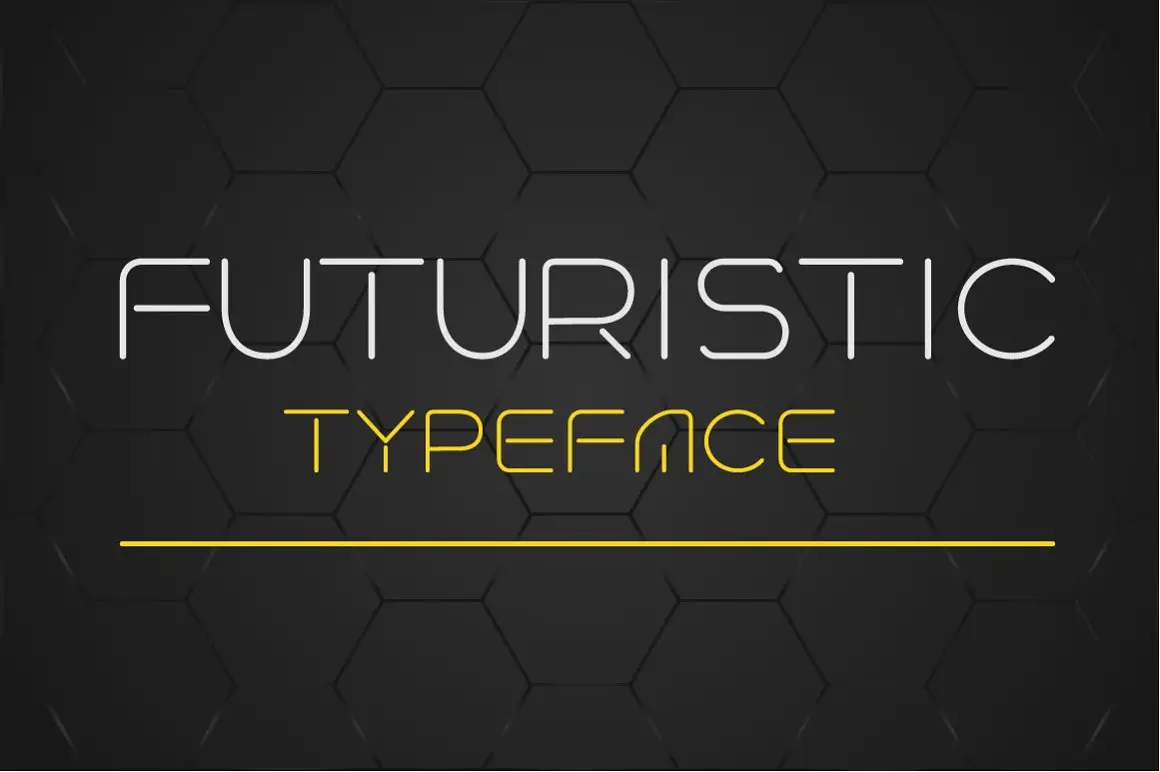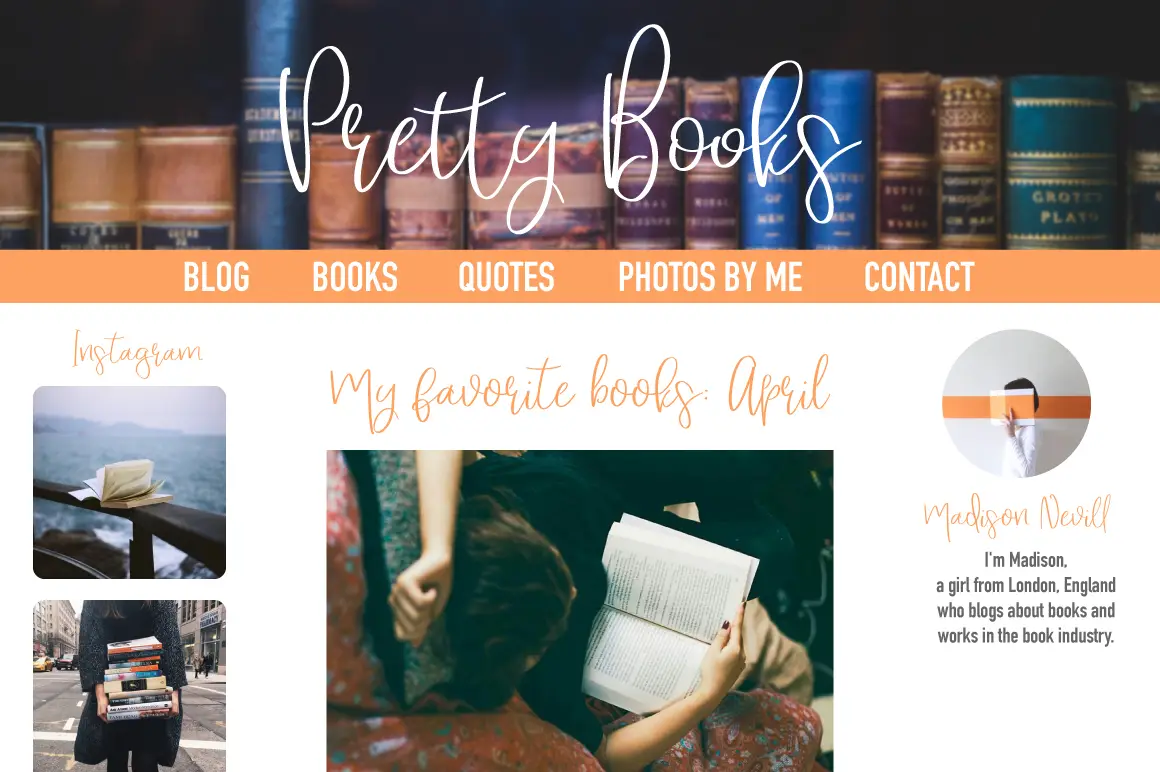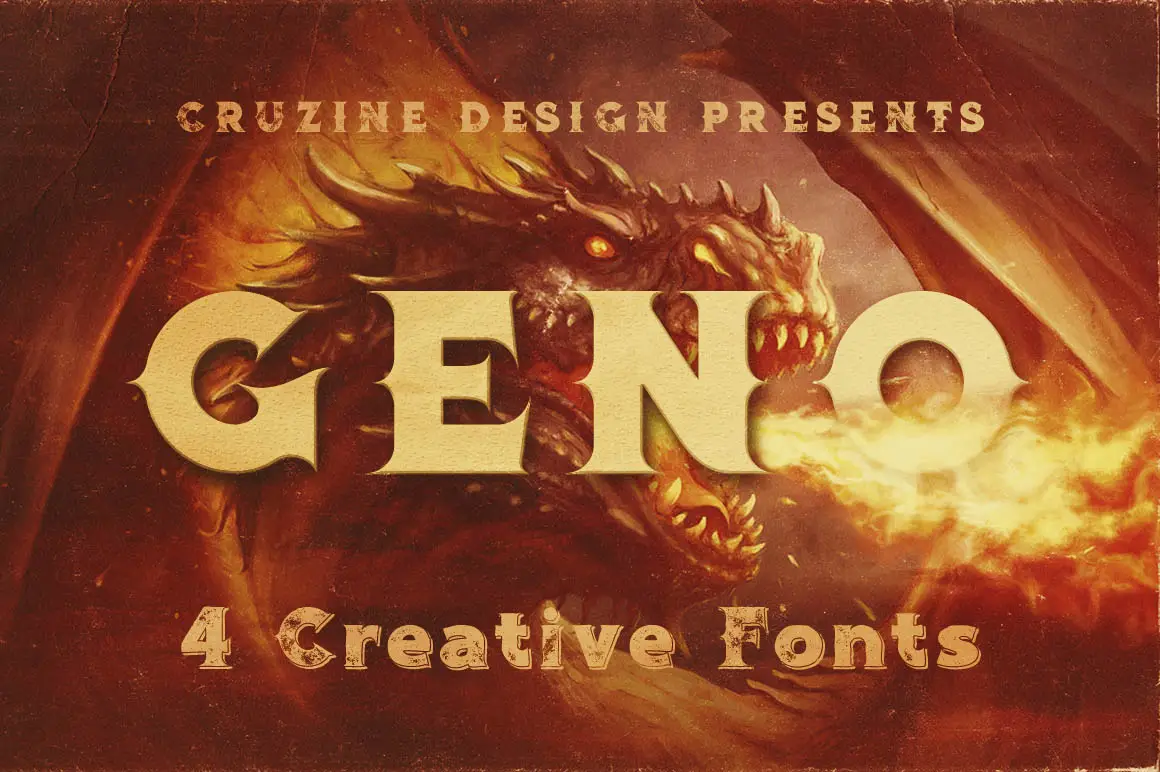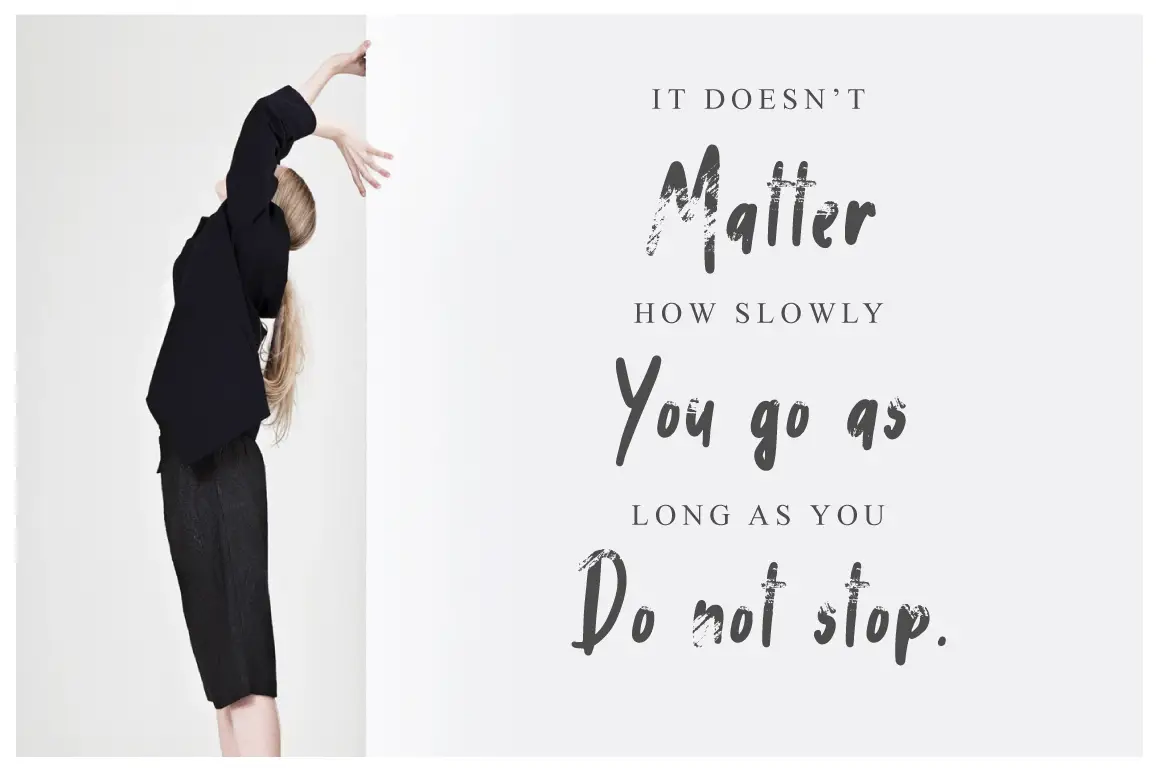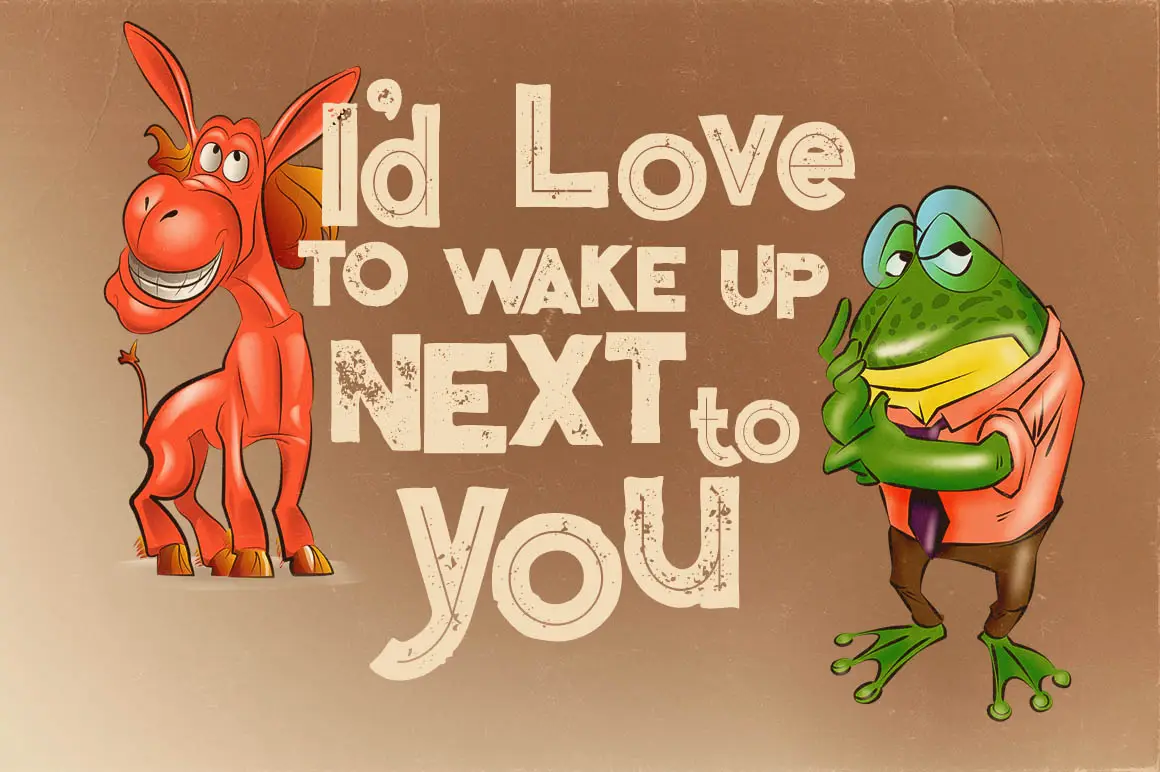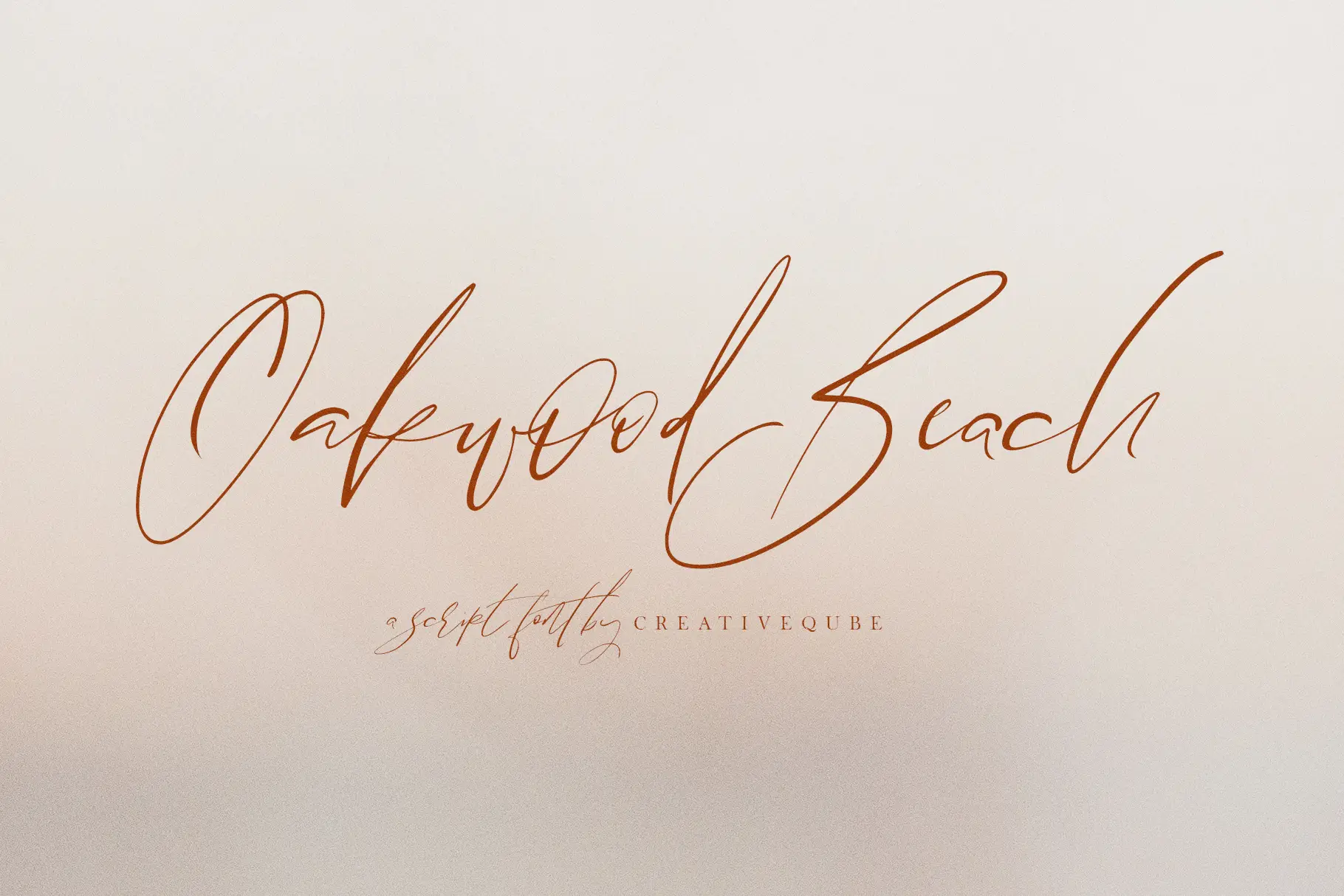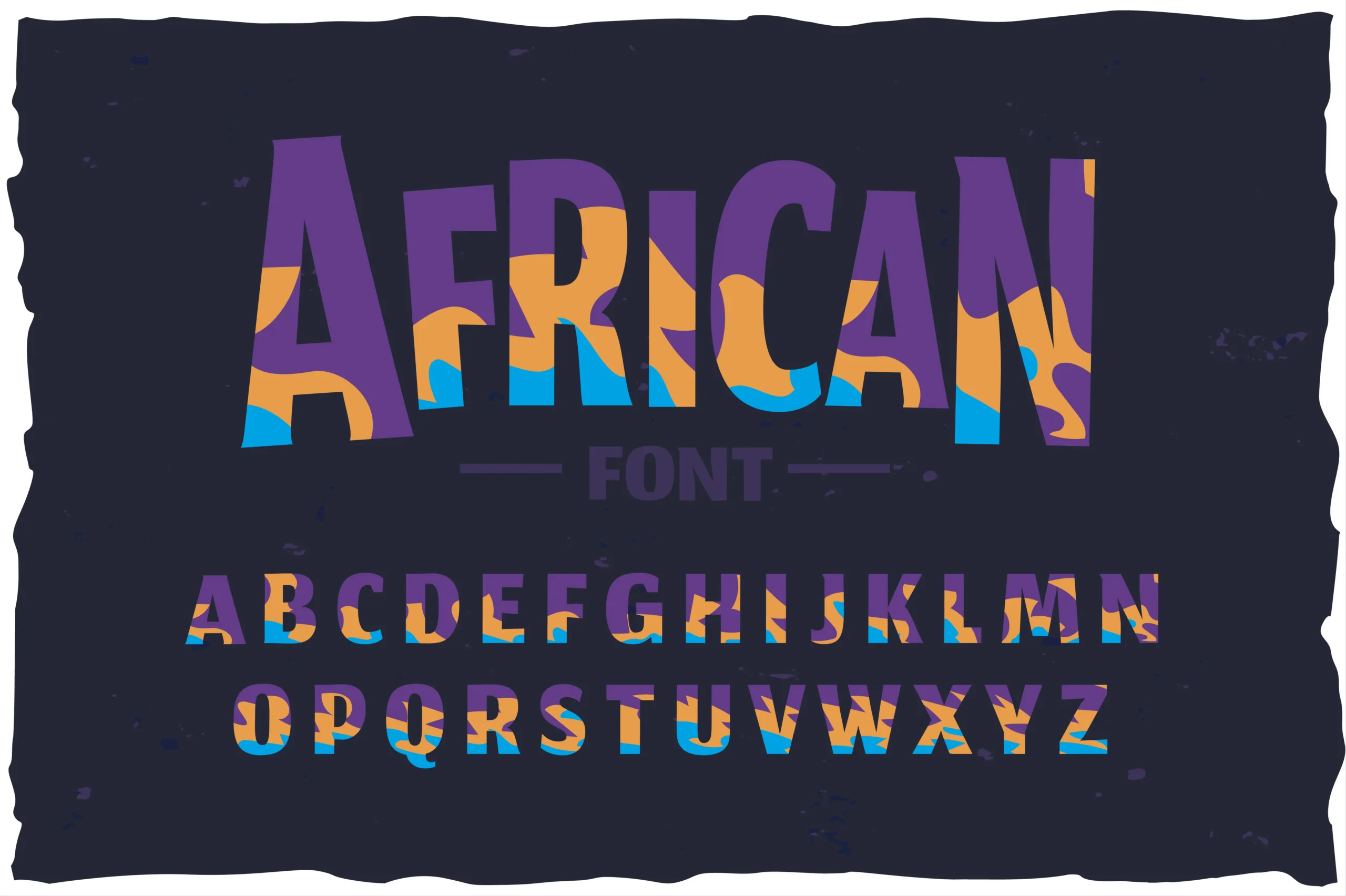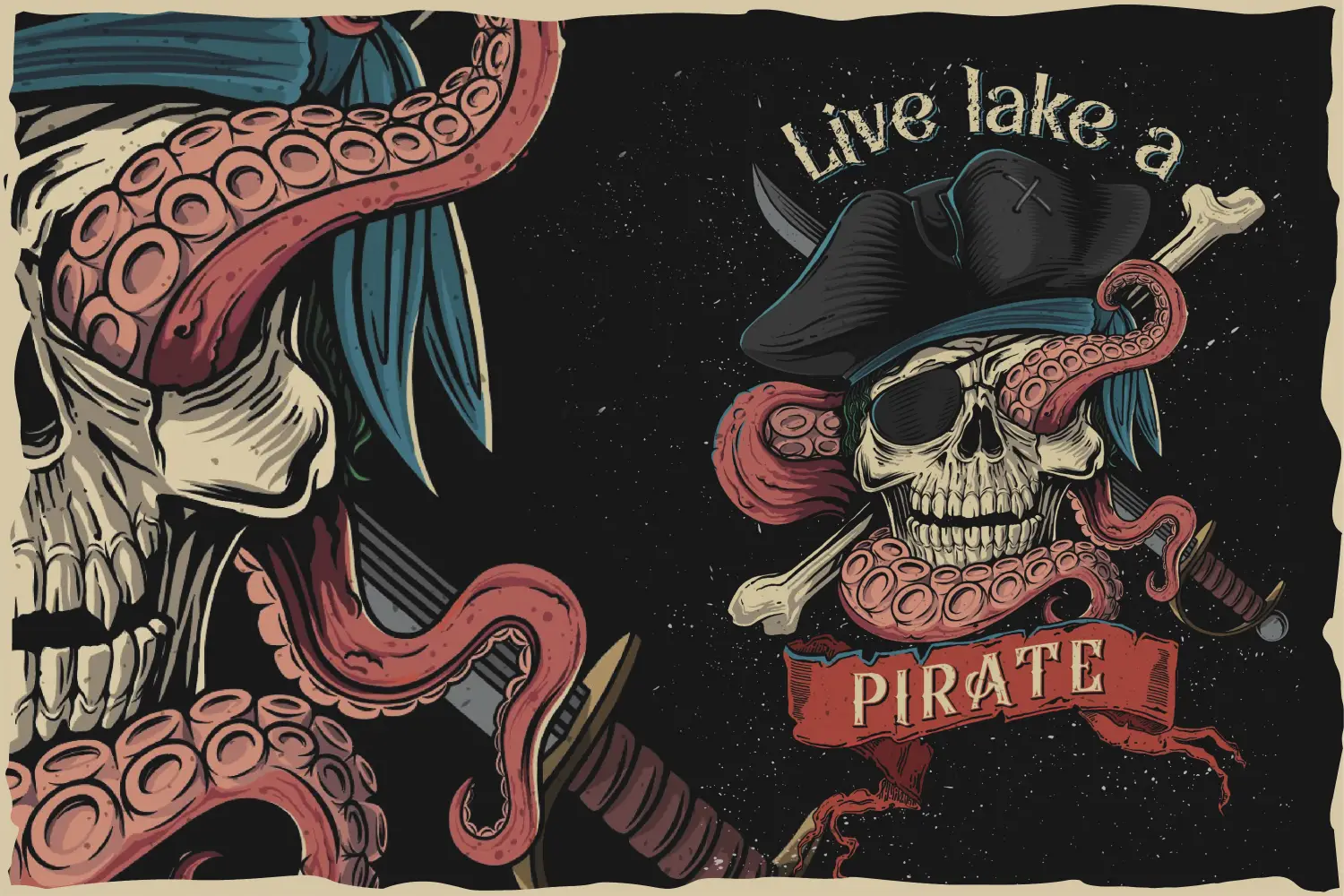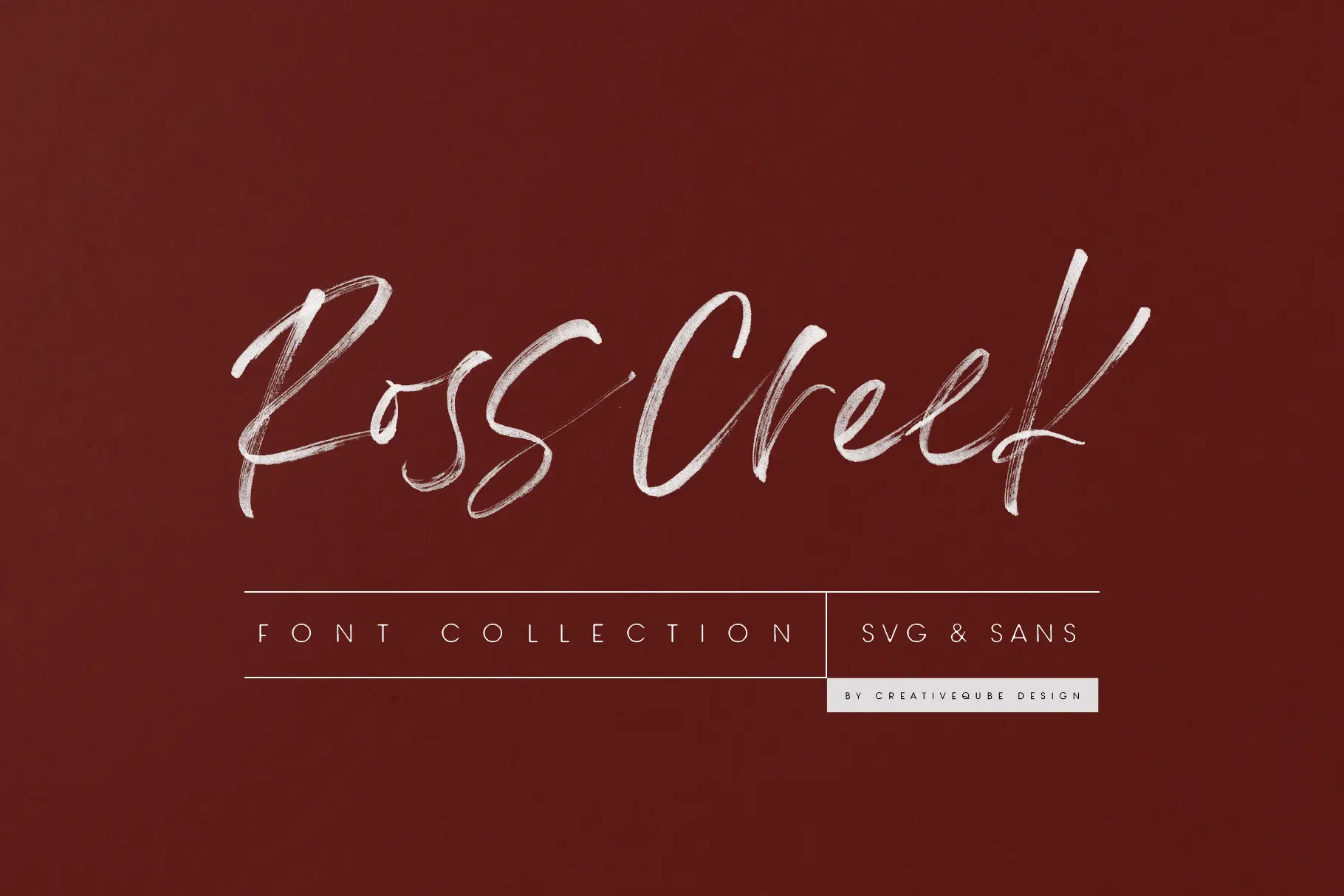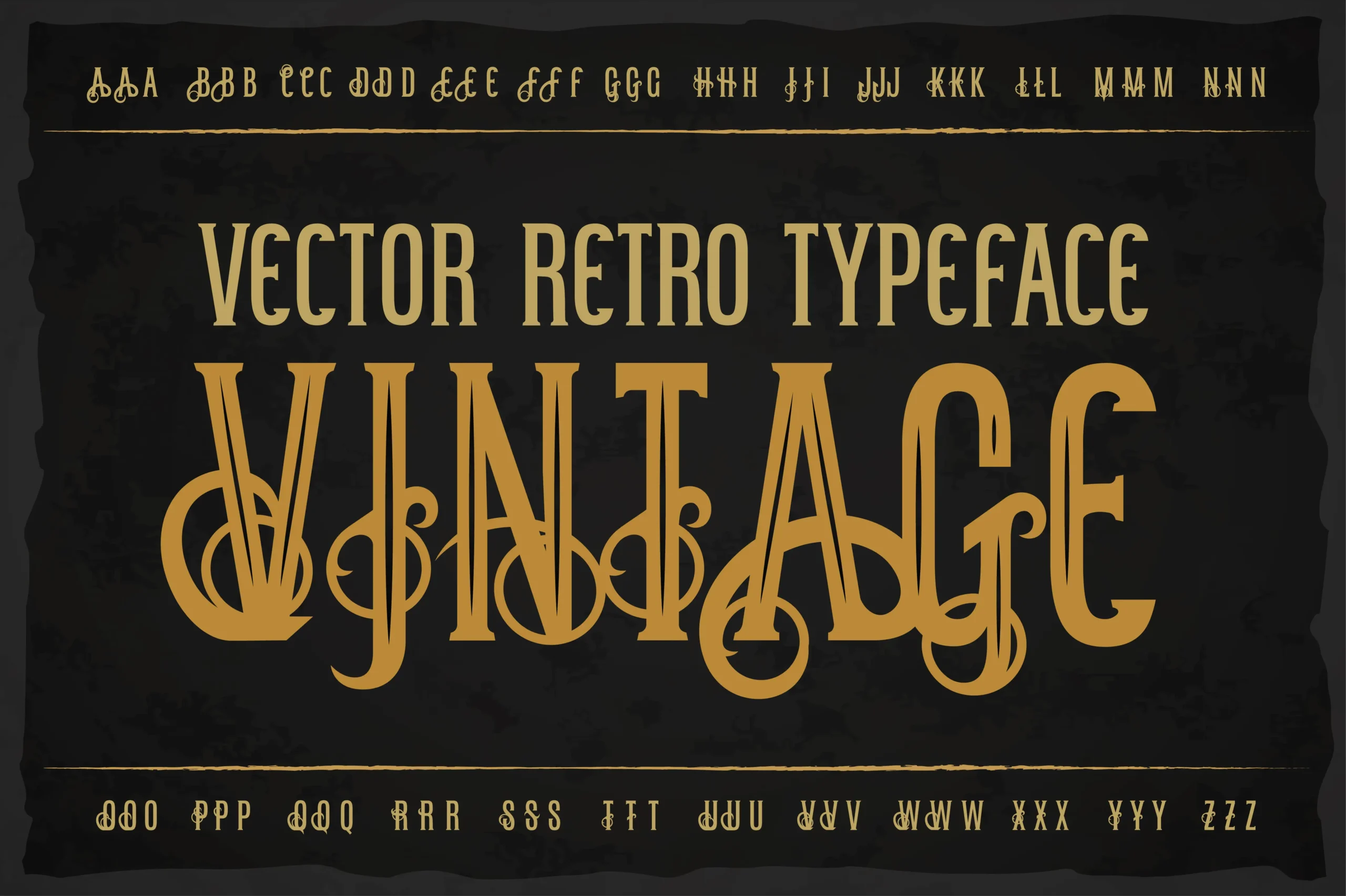
Newyork
Channel the energy of the Big Apple with this modern, sophisticated typeface! 🗽 Perfect for branding and web design, it’s clean, versatile, and screams urban elegance.
Geno
Geno is your go-to for seamless customization! 🎨 This high-quality asset blends into any project, making it a dream for both personal and professional use.
Mozza
Mozza is as delicious as its name suggests! 🧀 With customizable templates and high-quality design elements, it’s perfect for both web and print projects.
Kiko
Kiko brings the fun! 🐾 Packed with high-resolution graphics and illustrations, this collection is a one-stop shop for social media, branding, and marketing magic.
Hamburg
Hamburg is built for clarity and detail! 🌟 These high-resolution files are versatile enough to fit any project, from corporate branding to personal crafts.
Ollie
Say hello to Ollie, your new design BFF! 🤝 With customizable components and easy integration, it’s a total game-changer for visual storytelling.
Raven
Raven is dark, moody, and absolutely stunning! 🌙 Perfect for branding and digital artwork, its high-resolution files make every detail pop.
Geffry
Geffry brings a modern, clean aesthetic to your toolkit! ✨ It’s super customizable, making it a breeze for branding, marketing, and digital content.
Spooky Winter
Who said winter can’t be a little spooky? 👻🎄 This unique collection blends frosty vibes with eerie charm—perfect for holiday projects with a twist!
Wonderful Time Script Font By Creativeqube Design
Elegance meets charm with this flowing script font! ✍️ Perfect for invitations and personal touches, it’s available in multiple weights and formats.
Otf Color Font! Funny African Style
Add some serious flair to your designs with this vibrant, colorful font! 🌍🎨 It’s playful, bold, and perfect for branding that needs a unique cultural touch.
Vitage Elegant Sans Serif Otf Font
Classic meets modern in this elegant sans-serif! 🖤 Highly legible and versatile, it’s ideal for everything from logos to print materials.
Ross Creek Font Duo By Creativeqube
A dynamic duo! 🎭 This set pairs a flowing script with a clean sans-serif, giving you endless flexibility for any project.
Oakwood Beach Script Font
Feel the coastal breeze with this warm, flowing script! 🌊✨ Smooth curves and multiple weights make it a treat for invitations and branding.
Vintage Otf Label Font
Nostalgia never looked so good! 🕰️ This classic label font brings a retro charm that’s perfect for packaging, posters, and projects needing a vintage soul.
Pirates Rum
Ahoy, matey! 🏴☠️ This adventurous asset is packed with high-quality graphics that capture pirate lore and rum-fueled fun. Great for themed branding!
Virgil
Virgil is sleek, powerful, and super compatible! ⚡ These high-resolution elements integrate seamlessly into your favorite design software.
Zelda
Unlock creative magic with Zelda! 🔮 This collection blends functionality with high-quality, customizable elements that make any project shine.
Sanies Script
Elegance in every curve! 🌸 Sanies Script is beautifully crafted, supporting multilingual characters and multiple weights for global projects.
Futuristic Linear Style Typeface
Step into the future with this sleek, geometric typeface! 🤖🌀 Perfect for tech brands, logos, and anything needing a cutting-edge look.